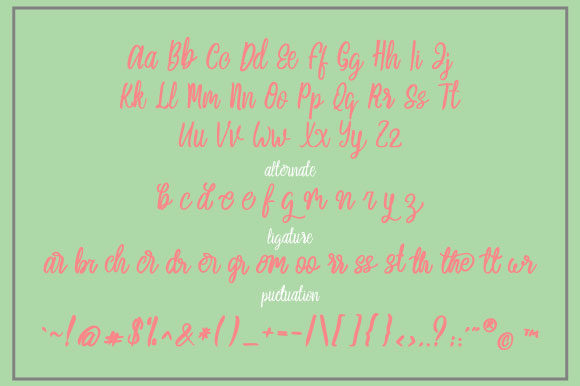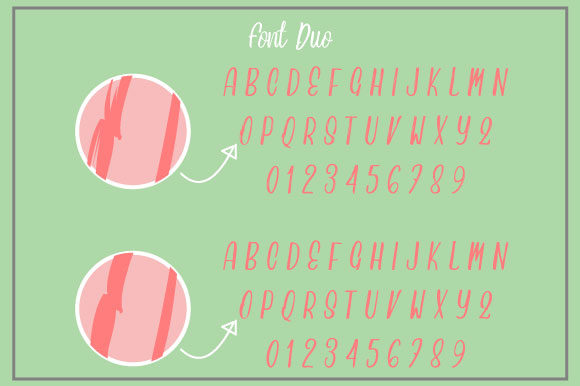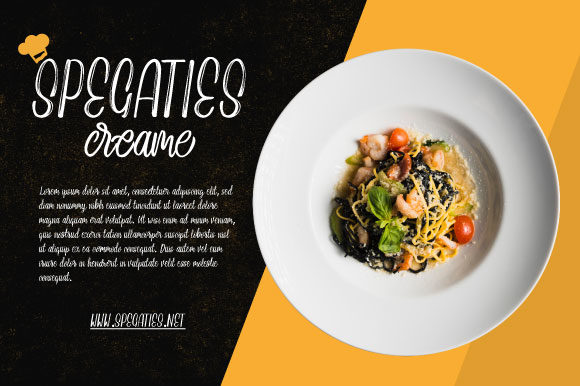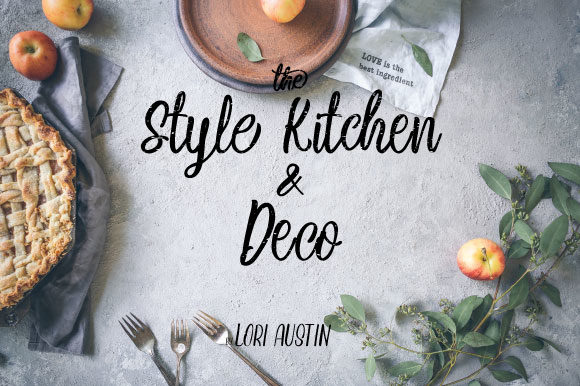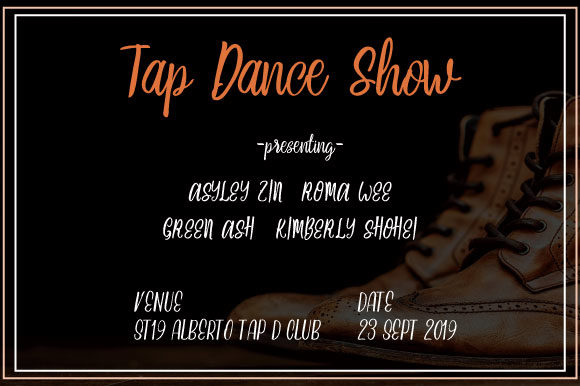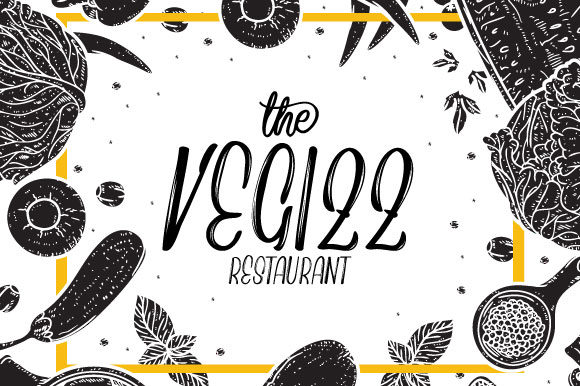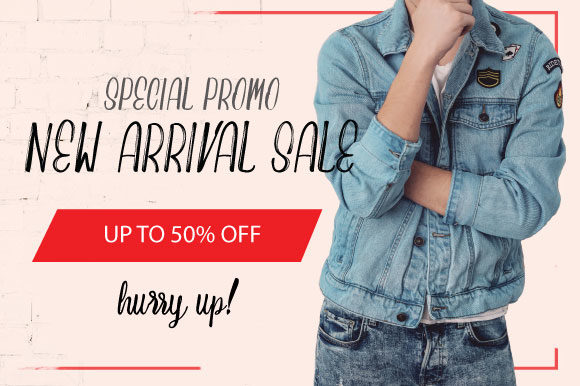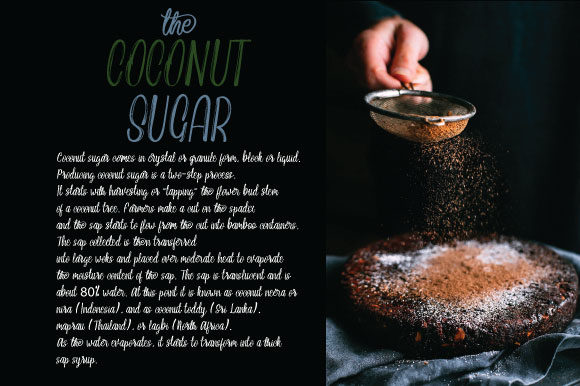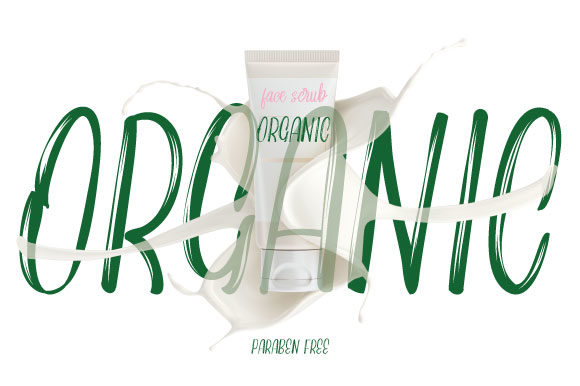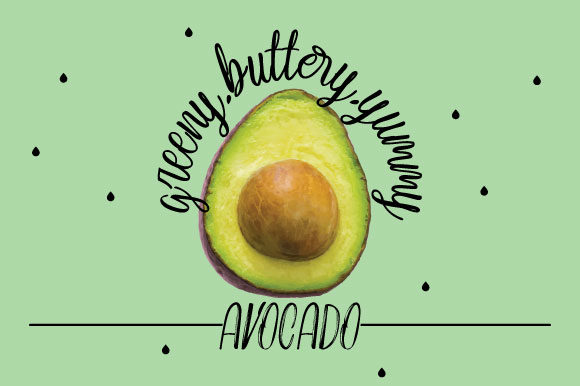
Cramella Duo Font
About Cramella Duo Font
Cramella is a carefully crafted handwritten font Duo with a fun and elegant charm. Get inspired by its unique feel!